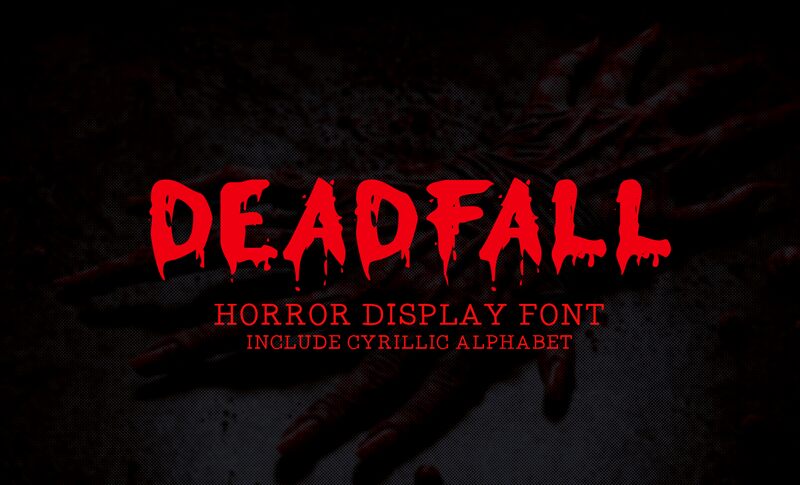
Deadfall font by Mofr24 is a bold, horror-themed display typeface featuring the fear-inducing effect of distressed dripping letters. It was designed to capture attention with its rough aesthetic inspired by those of death metal movies and bands. This scary monospace font is very versatile when it comes to languages because in addition to the English alphabet, it includes support for Cyrillic characters. The presence of both uppercase and lowercase characters in different weights such as regular and italic further expands its design capabilities.
This free display font would strike terror across movie posters, Halloween crafts, video games graphics, toy packaging designs, book covers, textile prints, website designs or blogs with spooky content. Its dripping style makes it perfect for use in apparel decorations while its conspicuousness can also add to advertisement campaigns and branding which require instant recognition from customers at first sight!